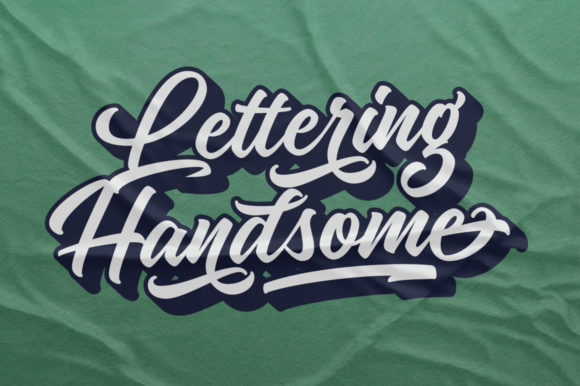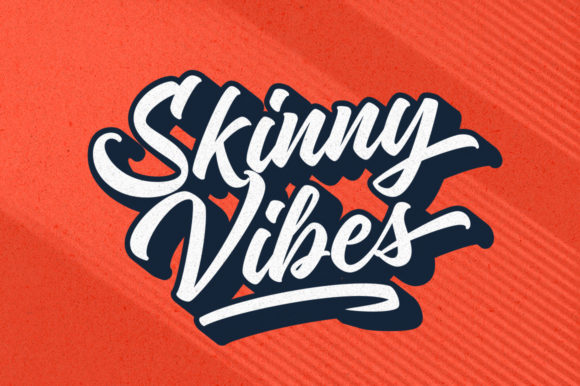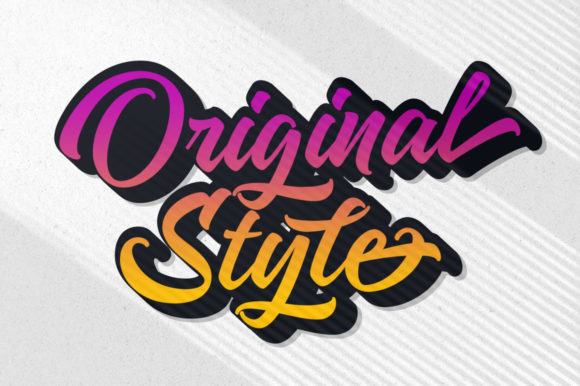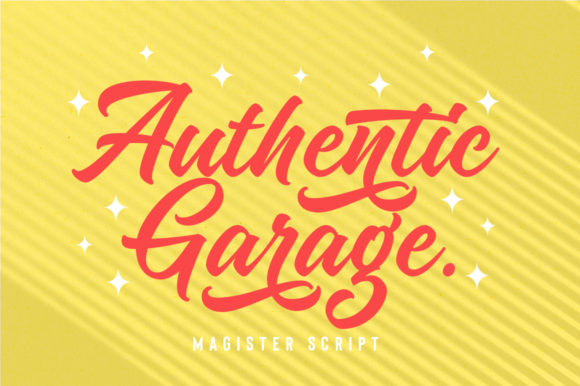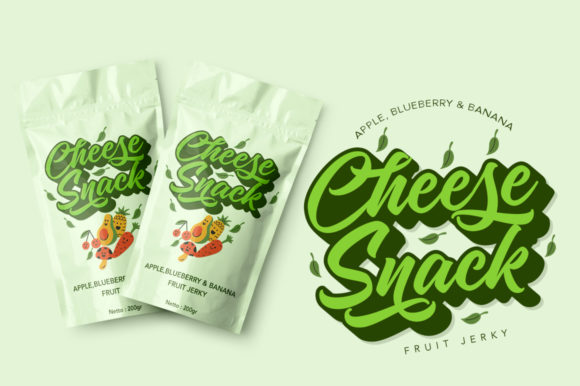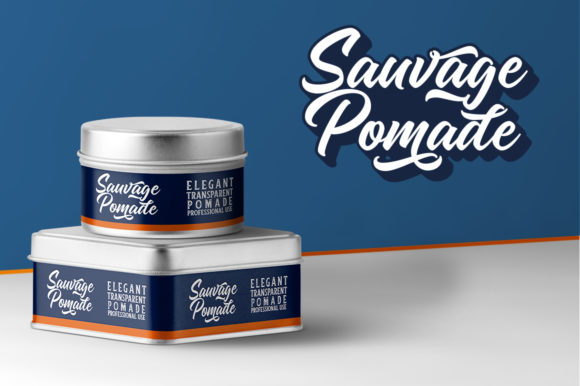
Introduction to Magister Script Font
Magister Script is an outstanding and flowing handwritten font.
Use this beautiful font to add that special touch to any design idea you can think of .
Magister Script Font offers exceptional quality and versatility, making it a valuable addition to your design toolkit. Whether you’re creating for personal projects or commercial use, Magister Script Font delivers professional results.